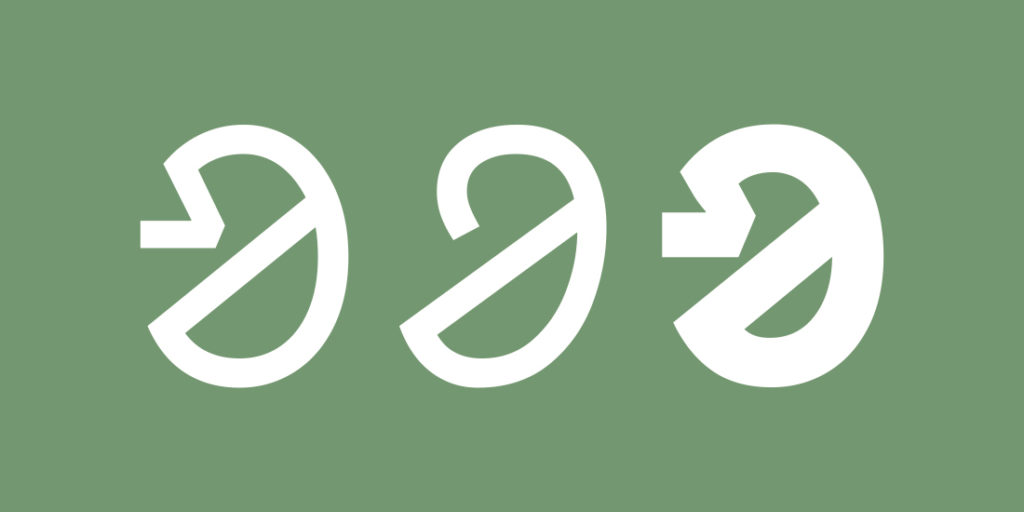
Typeface name: Guru Gomke
Designer: Pooja Saxena, with research support from Subhashish Panigrahi
Release date: October 2016
Back story: Ever met a teenaged girl yearning to be a typeface designer? Yes? Then perhaps you know Pooja Saxena, who recognized her life’s calling when she was still in high school. Saxena went on to study with type historian and designer Fiona Ross at the University of Reading in the UK.
The idea for Guru Gomke came from a chat she had with Panigrahi, whose work with the Access to Knowledge (A2K) Program at the Centre for Internet and Society in Bangalore underscored the lack of tools and resources available for India’s minority languages online. For example, Ol Chiki is the alphabet needed to write the language Santali, used by over 5 million people in India and its neighboring countries. “At the time of our conversation, we couldn’t find a single Unicode-compliant font in the script—forget a typeface family with a bold or an italic. [Noto Sans Ol Chiki, in regular and bold, has since been released]. Subhashish mentioned all these minority scripts in India that people can’t use because fonts and keyboards for them don’t exist,” Saxena says. “I was enthusiastic to help create a free open-source typeface family and input methods in Ol Chiki, and thanks to Subhashish’s work with A2K, he was able to make it happen.”
Why’s it called Guru Gomke? Guru Gomke is a title of respect for Pandit Raghunath Murmu, creator of the Ol Chiki script in the early 20th century. The name translates to “great teacher.” It was recommended to Panigrahi by one of the language experts consulted by the designers, and they found it a wonderful nod to the history of the script.
What are its distinguishing characteristics? Its very existence, frankly. It’s now one of just two Unicode-compliant fonts with both bold and italic character sets.
What should I use it for? Next time you need to set absolutely anything in Ol Chiki.
What other typefaces do you like to pair it with? Matched to Source Sans Pro visually and proportionally, these two fonts are visually harmonic used anywhere Ol Chiki and Latin texts have to work together. In fact, the Latin glyphs included in Guru Gomke are derived from Source Sans Pro.